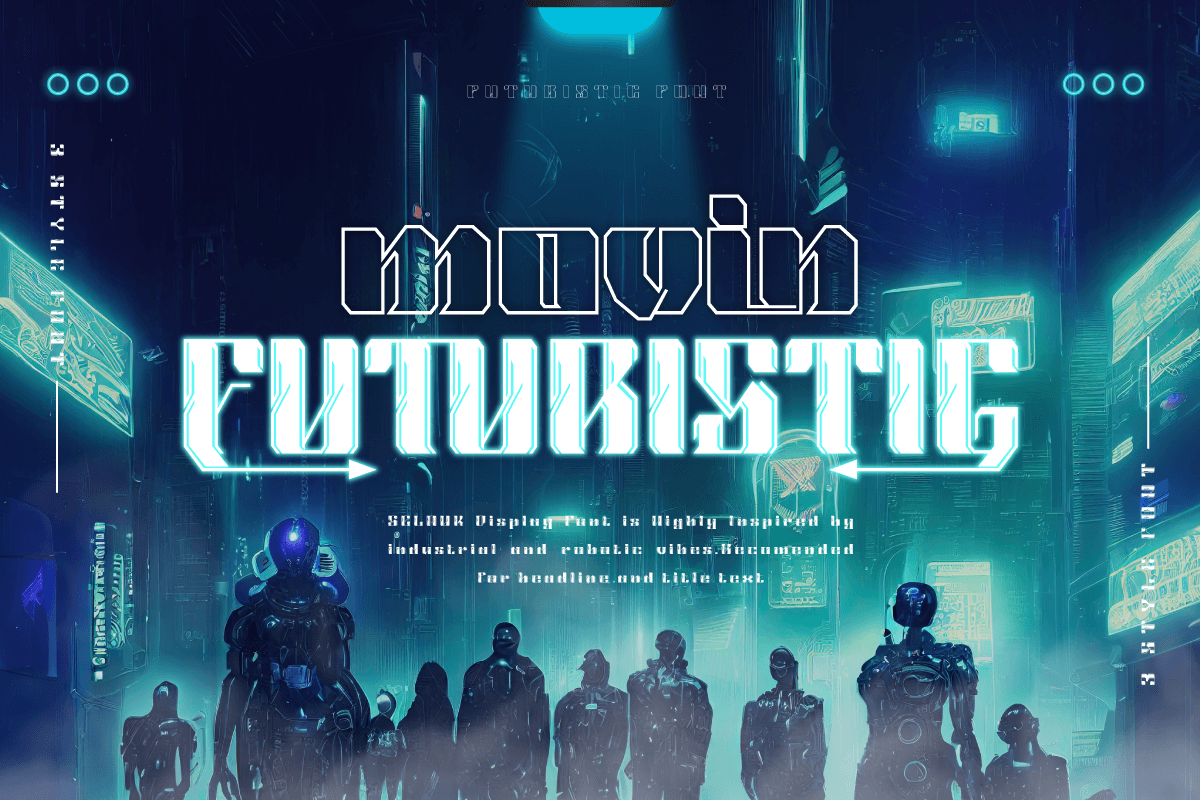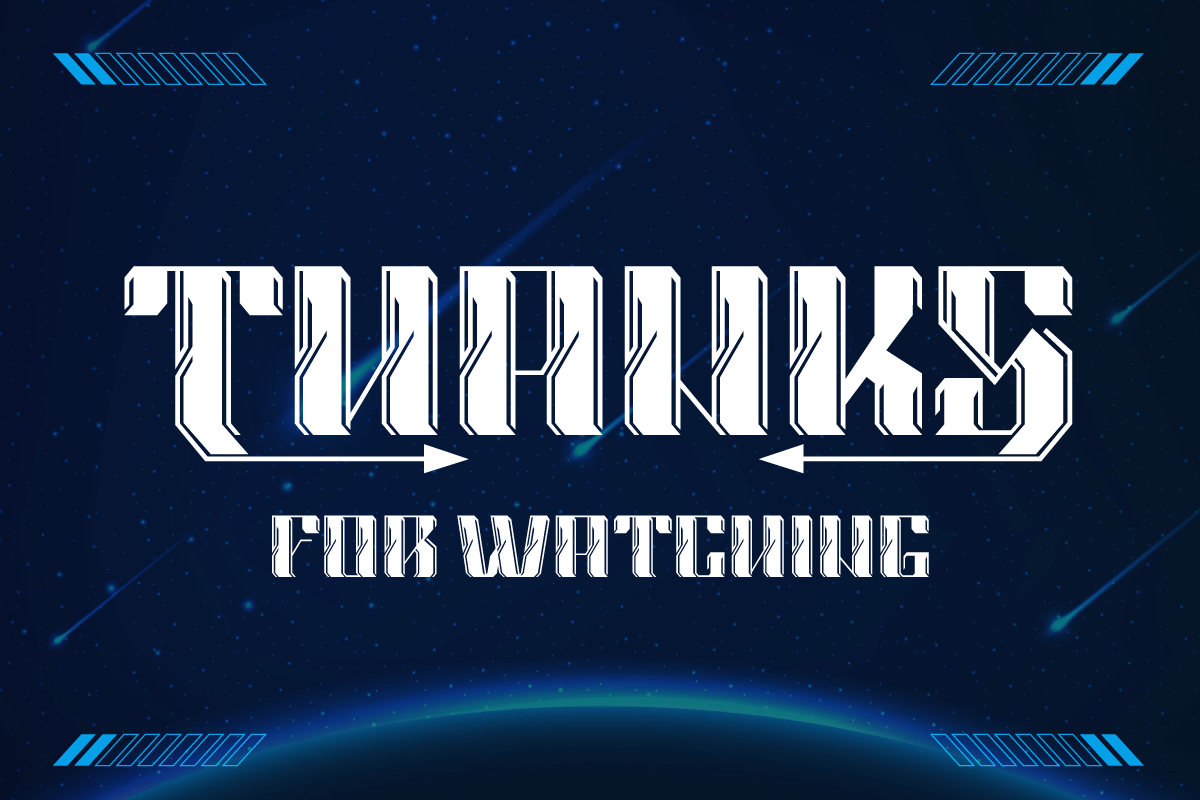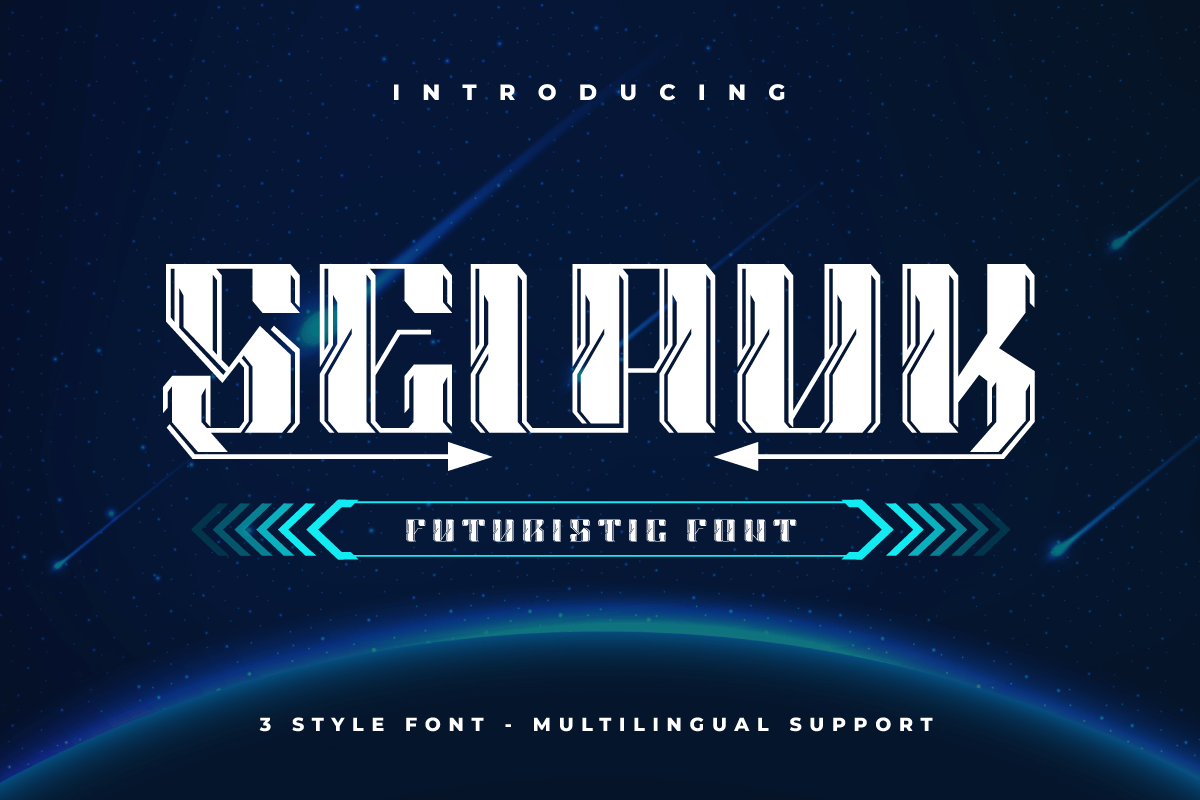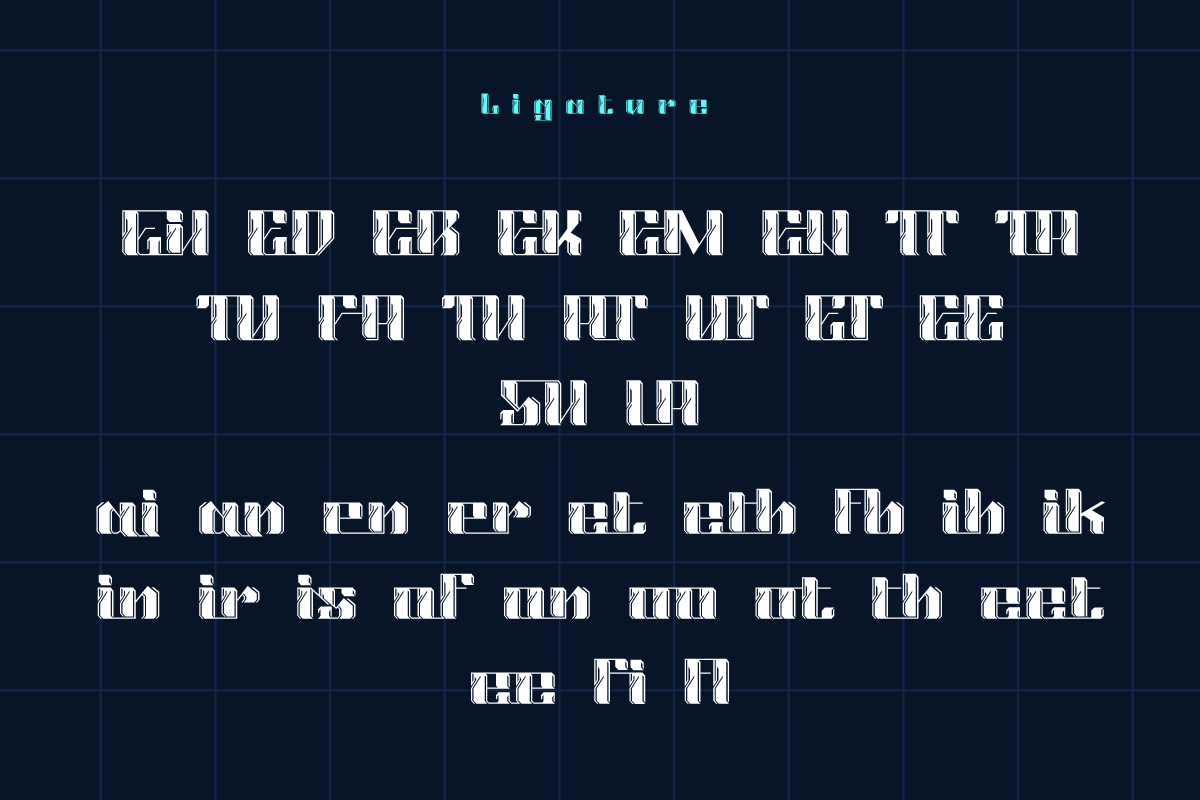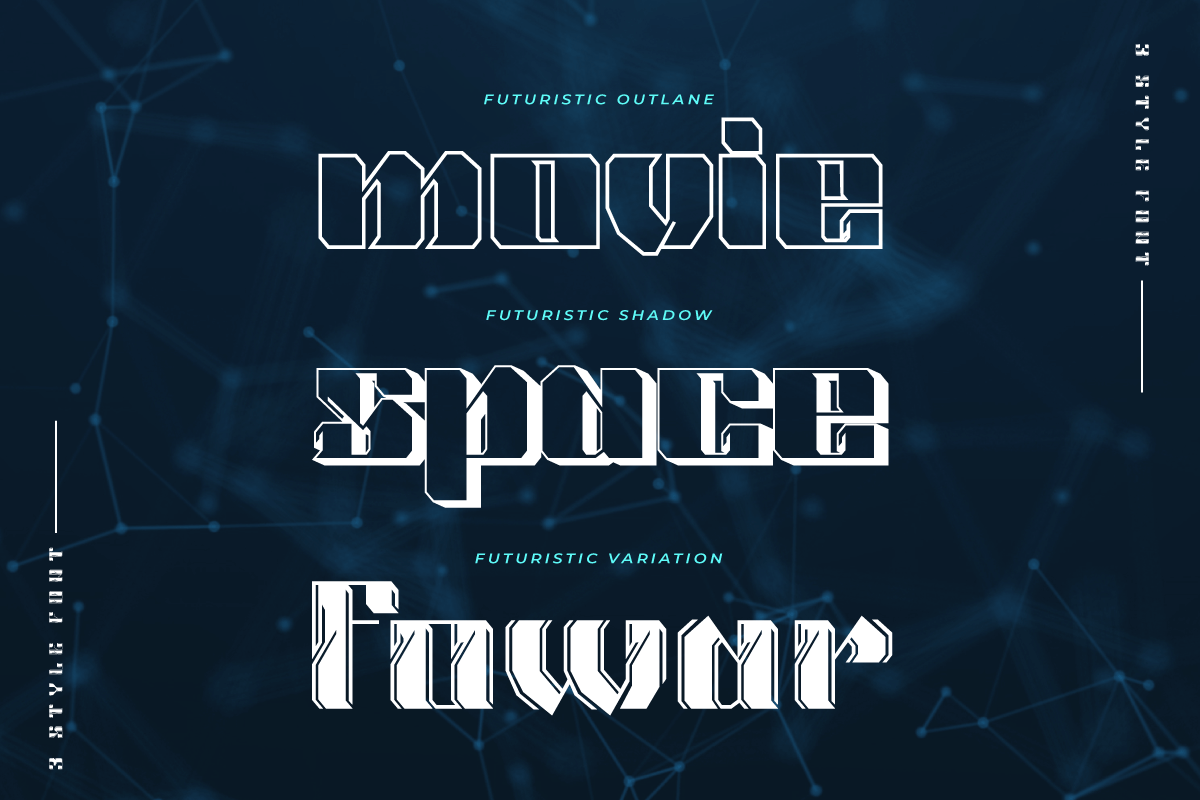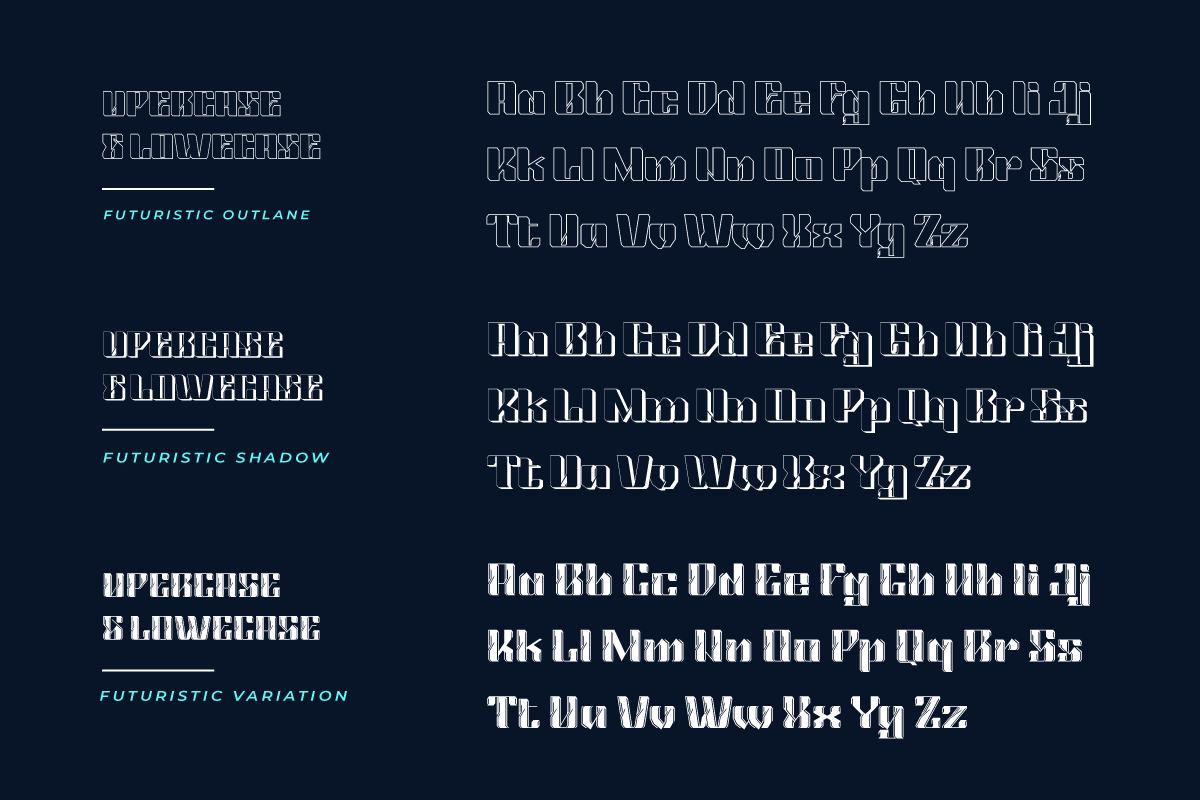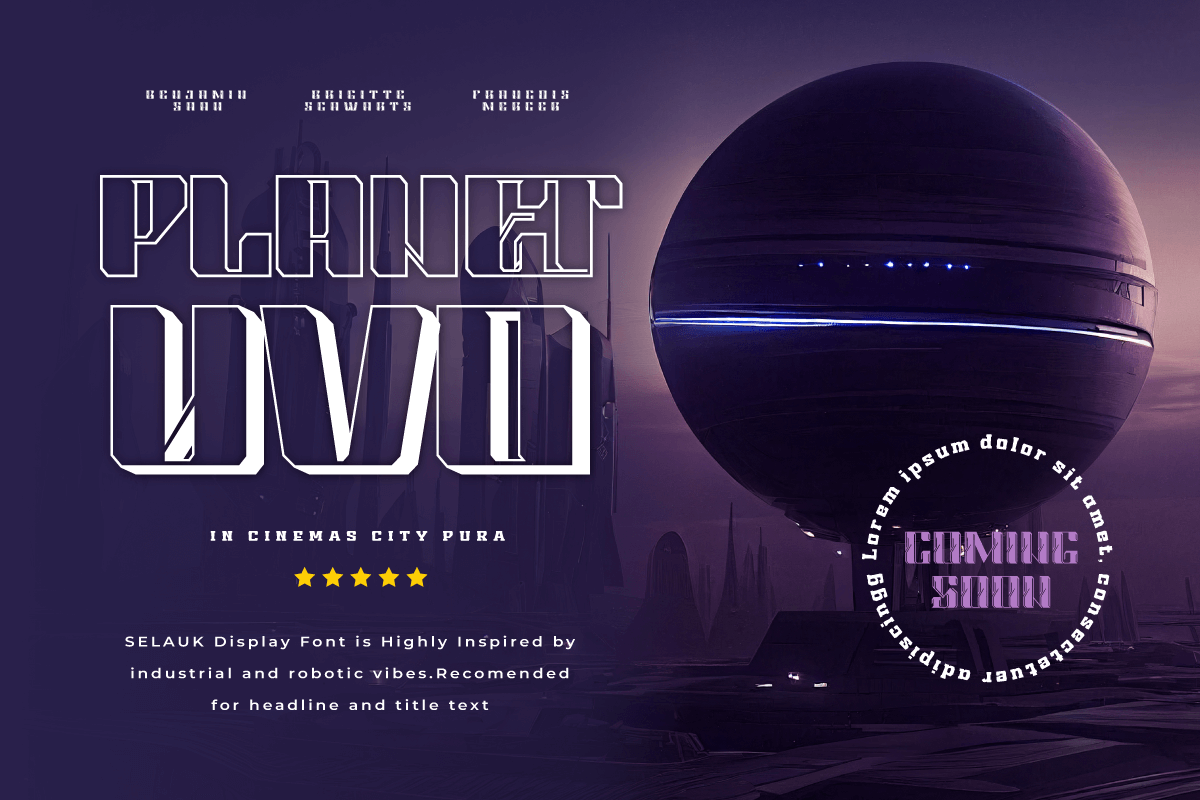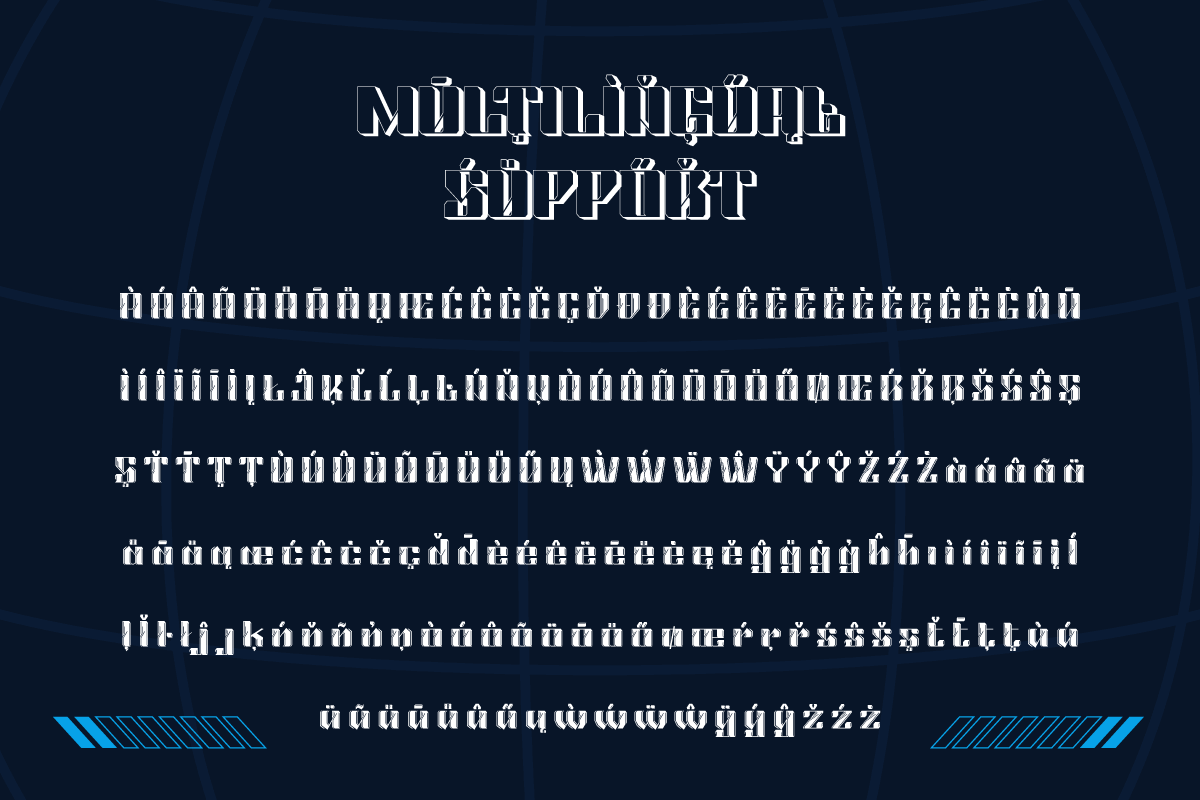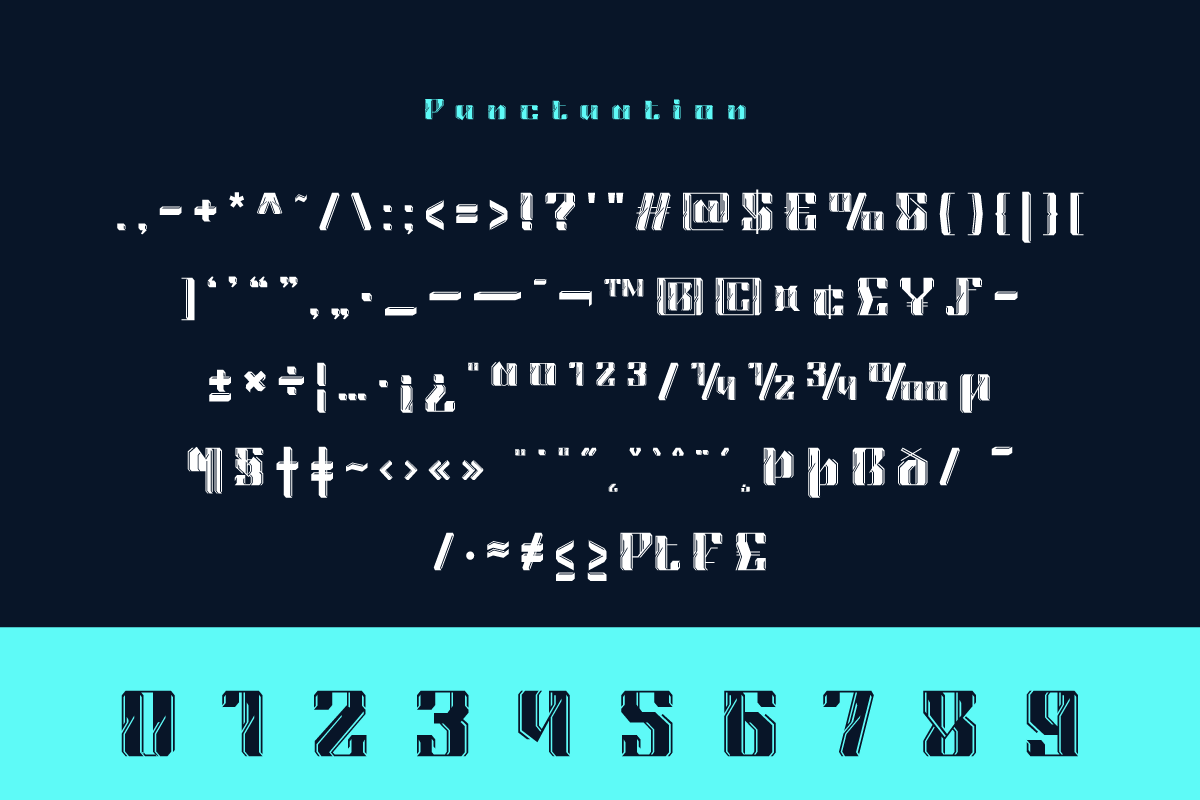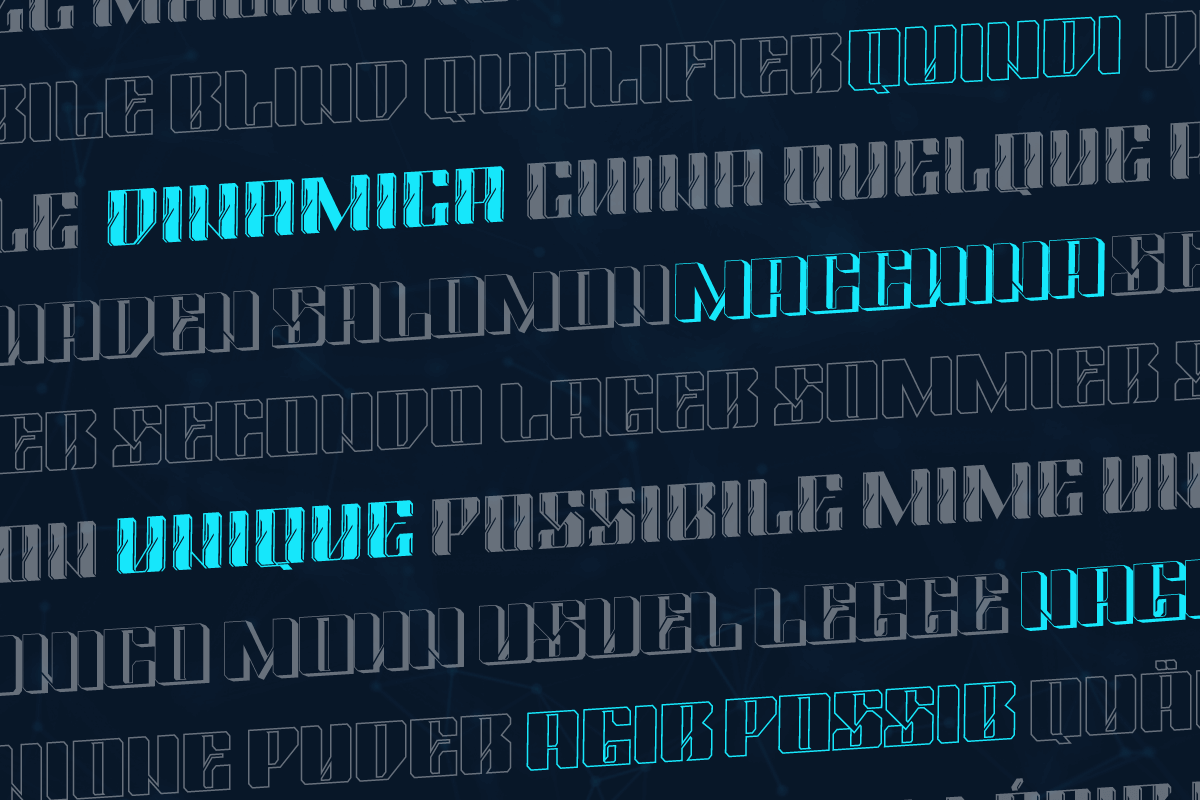
Selauk | Futuristic Font
Selauk is a window into the futuristic world of typography’s future. With this theme, this font is the ideal answer for projects that need a touch of modern, sci-fi, and future atmosphere.
Selauk represents unrivaled visual innovation. Each letter is a work of art in its own right, embracing a modern style with a distinctly futuristic twist.
However, Selauk is not just appearance. This font exudes excellent, alluring features. Ligature and alternate give you the freedom to experiment with creative and original designs.
With a variety of different fonts, Selauk provides unlimited flexibility in conveying your message. Supporting multilingualism, this font ensures its influence can be felt across languages and cultures around the world.